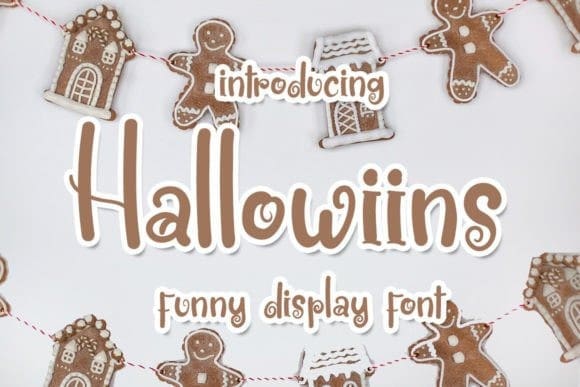
Hallowiins Display Font
Hallowiins Display Font is a beautiful and sweet display font. This font will look amazing in a great number of projects, both formal and informal. It will add an incredibly joyful touch to your designs.